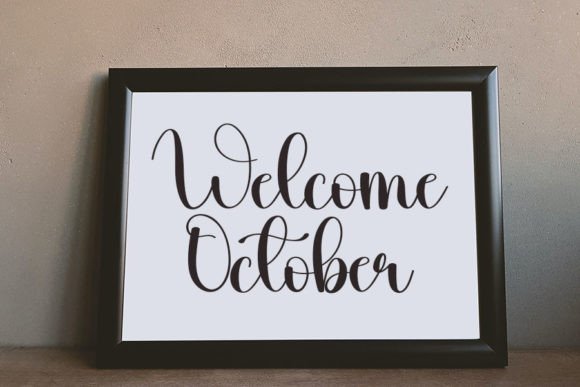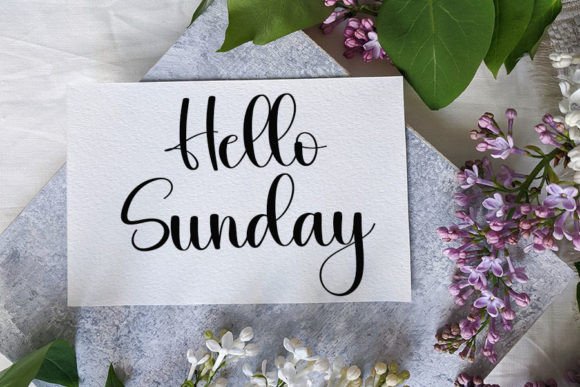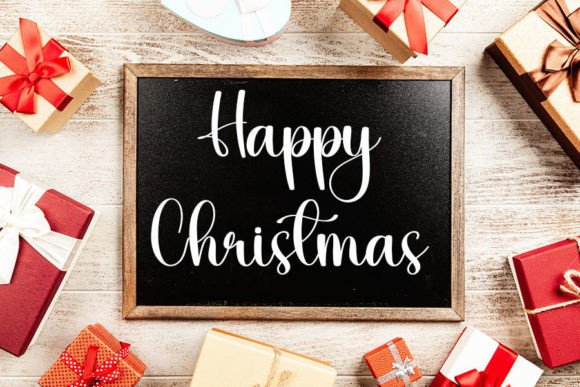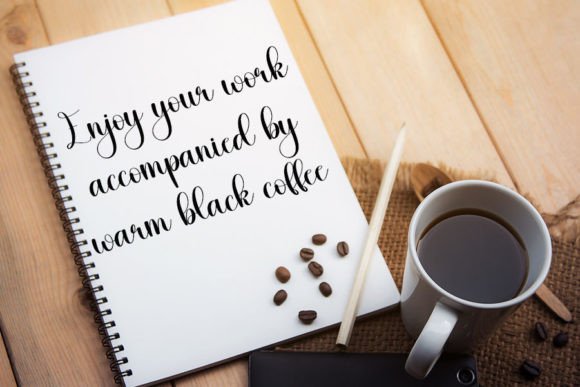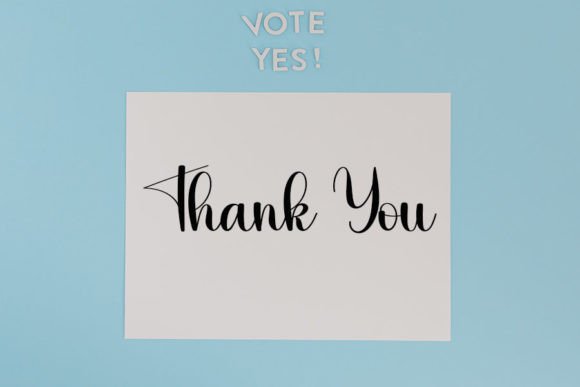
Introducing Belgia Font: Elevate Your Designs with Elegance and Sophistication
In the world of typography, a font can make or break a design project. It has the power to evoke emotions, convey messages, and add a touch of personality to your creations. If you’re a designer or crafter looking for a font that exudes luxury and sophistication, look no further than Belgia Font. This sweet and beautiful handwritten font is sure to take your designs to the next level.
The Charm of Belgia Font
Belgia Font is a stunning handwritten font that features characters that dance along the baseline, creating a sense of movement and fluidity. This unique characteristic sets it apart from other fonts and gives it a distinctive charm that’s hard to find elsewhere. The font’s elegant and refined appearance makes it perfect for a wide range of design projects, from luxury branding and packaging to wedding invitations and digital marketing materials.
Key Features of Belgia Font
- Sweet and Beautiful Handwritten Style: Belgia Font boasts a sweet and beautiful handwritten style that’s perfect for designs that require a personal touch.
- Characters that Dance Along the Baseline: The font’s unique characteristic of characters dancing along the baseline adds a touch of elegance and sophistication to any design.
- Luxury Spark: Belgia Font is designed to add a luxury spark to any design project, making it perfect for high-end branding and marketing materials.
- Versatile and Flexible: The font is highly versatile and can be used for a wide range of design projects, from print to digital.
Why Choose Belgia Font?
- Unique and Distinctive: Belgia Font’s unique handwritten style and dancing characters make it stand out from other fonts.
- Elegant and Refined: The font’s elegant and refined appearance makes it perfect for designs that require a touch of sophistication.
- Easy to Read: Despite its elegant appearance, Belgia Font is highly legible and easy to read, making it perfect for body text and headlines.
- Highly Versatile: The font can be used for a wide range of design projects, from luxury branding to digital marketing materials.
How to Use Belgia Font in Your Designs
- Pair it with Other Fonts: Belgia Font pairs perfectly with other fonts, such as sans-serif fonts for a modern look or serif fonts for a more traditional look.
- Use it for Headlines and Body Text: The font’s high legibility makes it perfect for both headlines and body text.
- Add a Pop of Color: Belgia Font looks stunning in a variety of colors, so don’t be afraid to experiment and add a pop of color to your designs.
In conclusion, Belgia Font is a sweet and beautiful handwritten font that’s sure to elevate your designs with elegance and sophistication. Its unique characteristics, elegant appearance, and high versatility make it perfect for a wide range of design projects. Whether you’re a designer or crafter, Belgia Font is a must-have in your font collection.